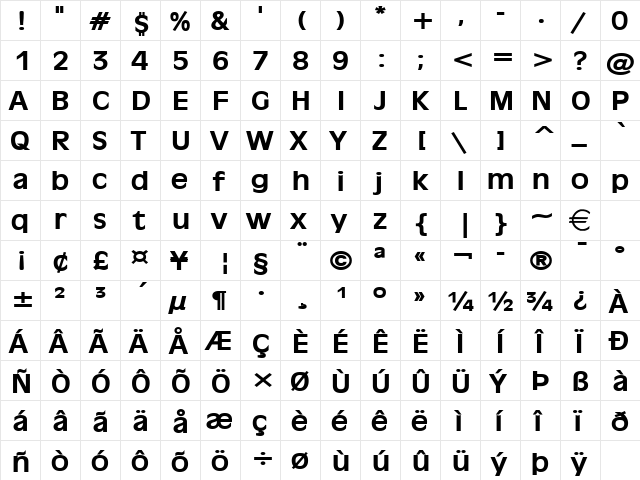
Antiqua101Wide Bold Font Preview
Antiqua101Wide Bold
Design Context for Antiqua101Wide Typeface
Antiqua101Wide offers clean, dependable letterforms without strong stylistic allegiance, making it a practical choice for designers who need flexibility. Its bold stroke weight gives it real presence on the page.